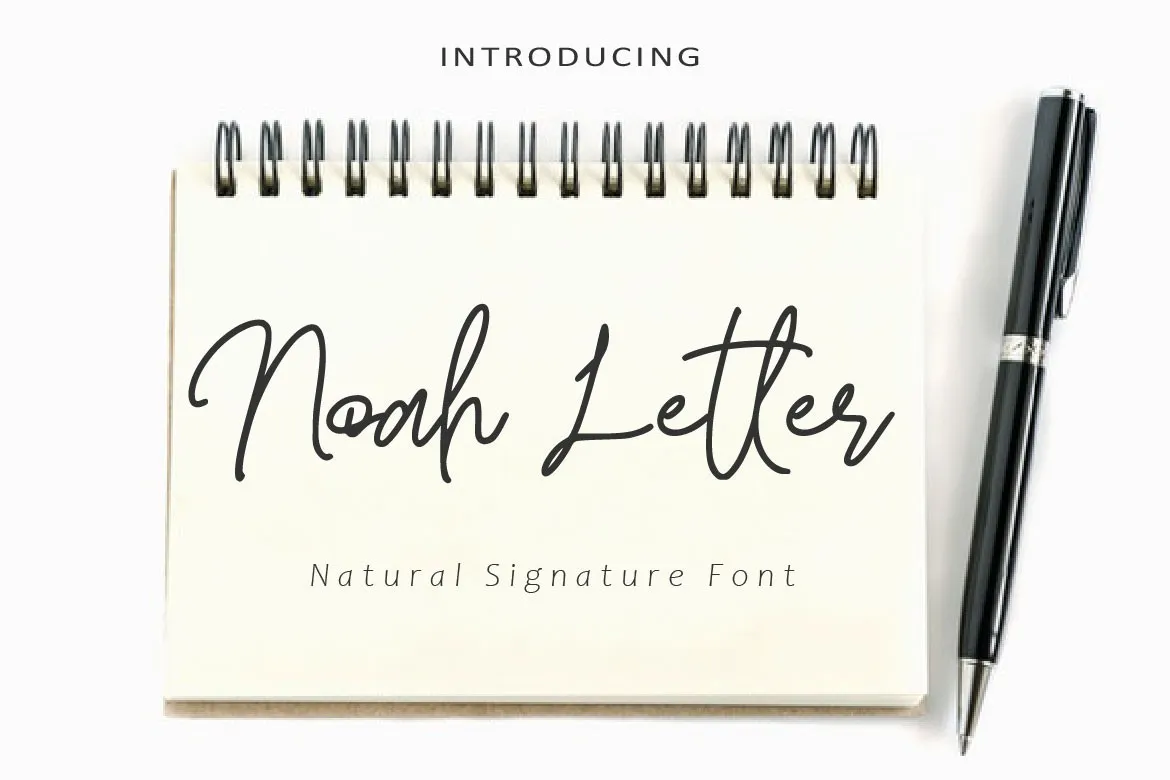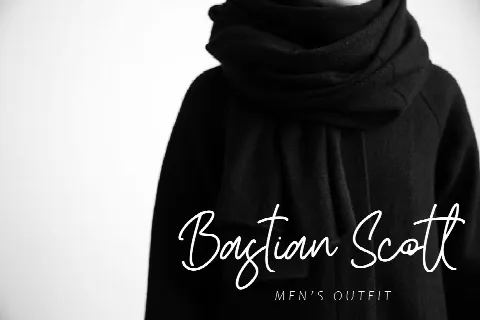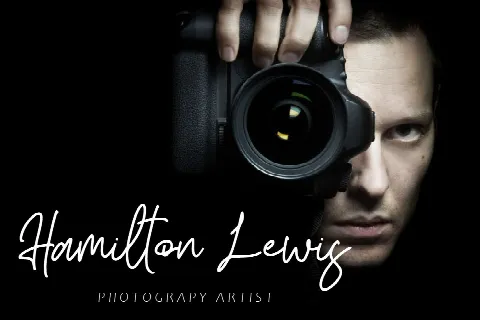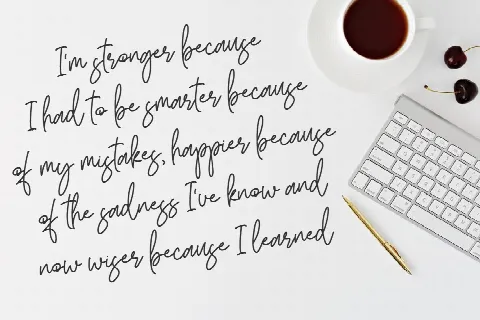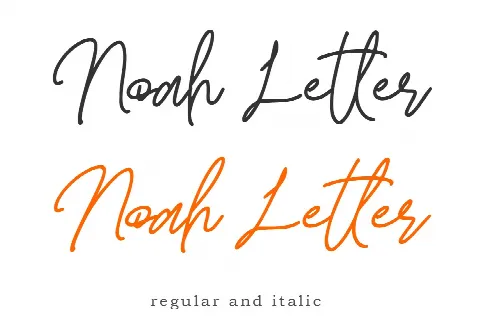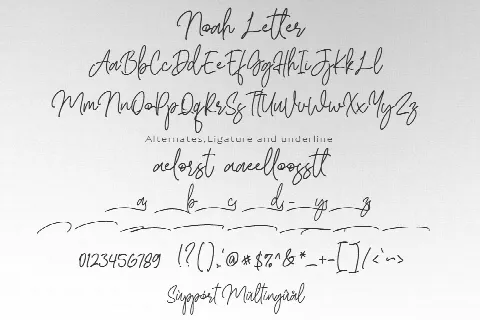
Noah Letter
Noah Letter is a natural signature font, that is readable and stylish. This font was created to look as close to a natural handwritten script, as possible by including alternates lowercase, swash lowercase, ligature and underlines. Built in Opentype features, this script comes to life as if you were writing it yourself. Perfect for any awesome projects that need hand writing taste.
Comes with regular and italic. Also support multilingual. This is suitable for branding, quotes, invitations, stationery, wedding design, logos, watermarks on photography, signatures, advertisement, album covers, business cards, clothing, magazines, posters, and more!